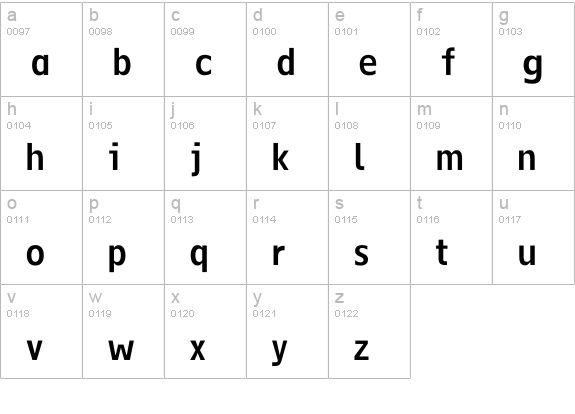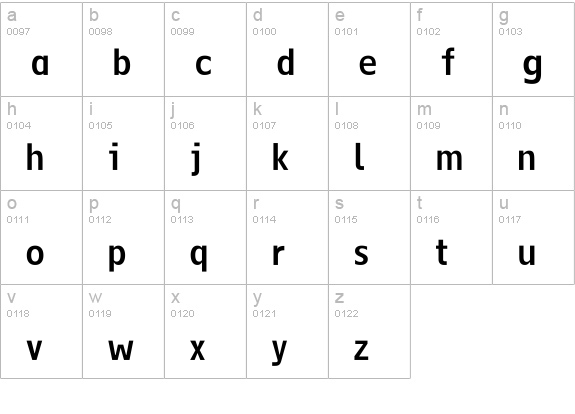
AFInterface-Two Font Details
AFInterface-Two is a modern and elegant font that exudes sophistication and style. With its sleek lines and contemporary flair, this font is perfect for any design project that requires a touch of class. The clean and crisp letterforms of AFInterface-Two make it a versatile choice for logos, branding, packaging, and more. What sets AFInterface-Two apart is not only its stunning aesthetics but also the fact that it is completely free to download. Yes, you read that right - this high-quality font is available for free at FontsMarket.com. Whether you're a professional designer looking to add a new font to your collection or a hobbyist looking to elevate your creative projects, AFInterface-Two is the perfect choice. Download AFInterface-Two today and start creating beautiful designs with this exceptional font that combines modernity with sophistication.